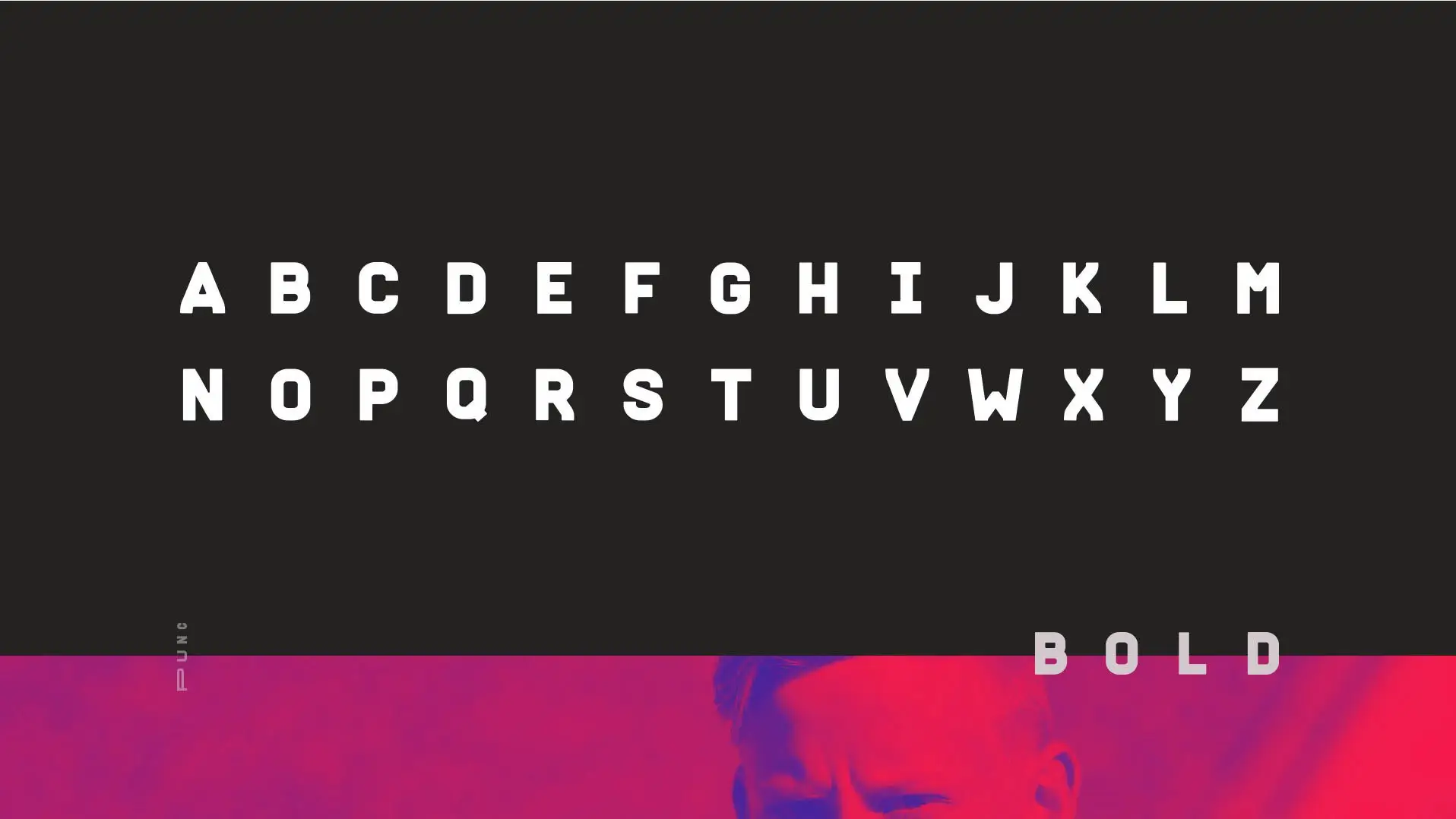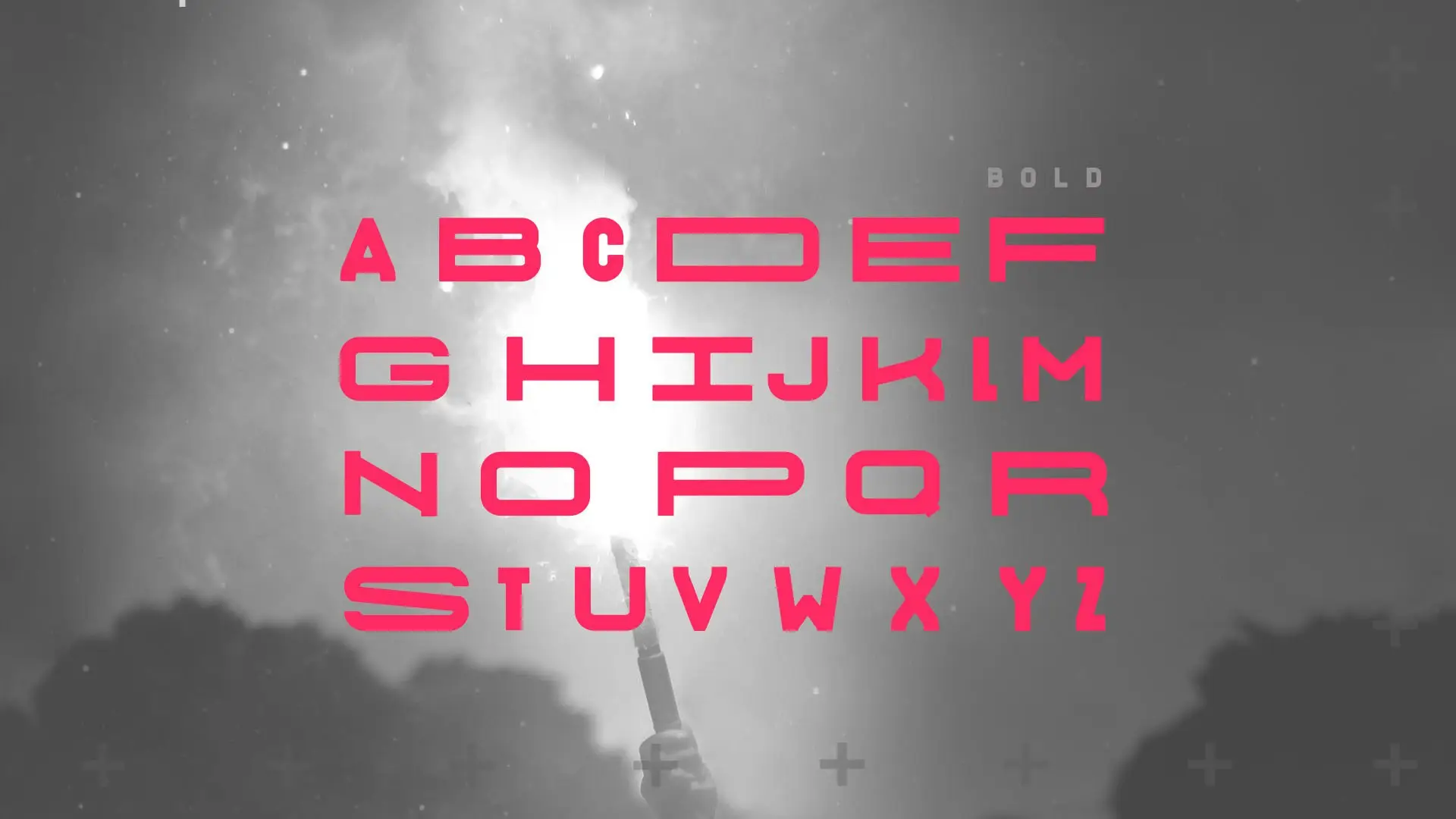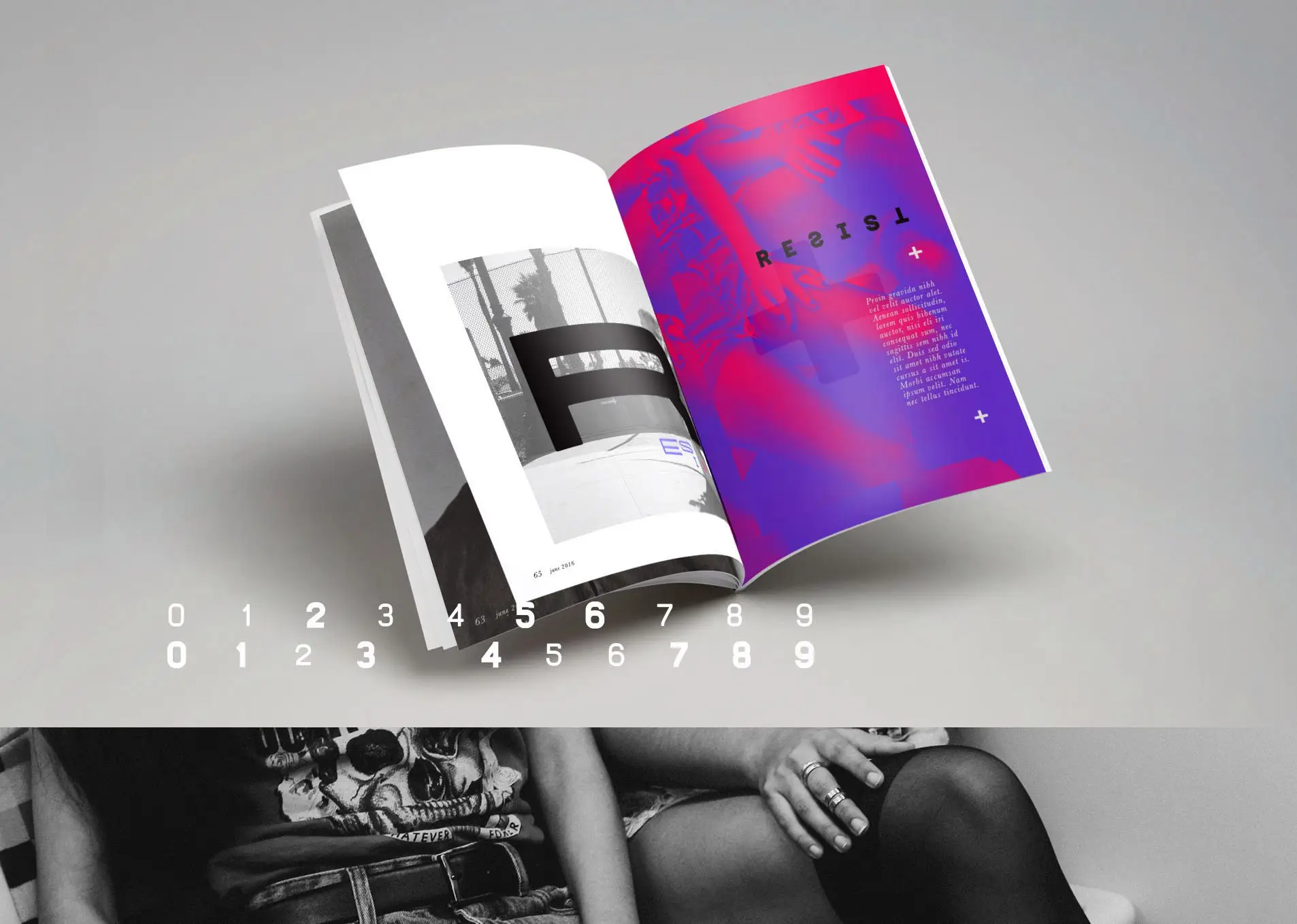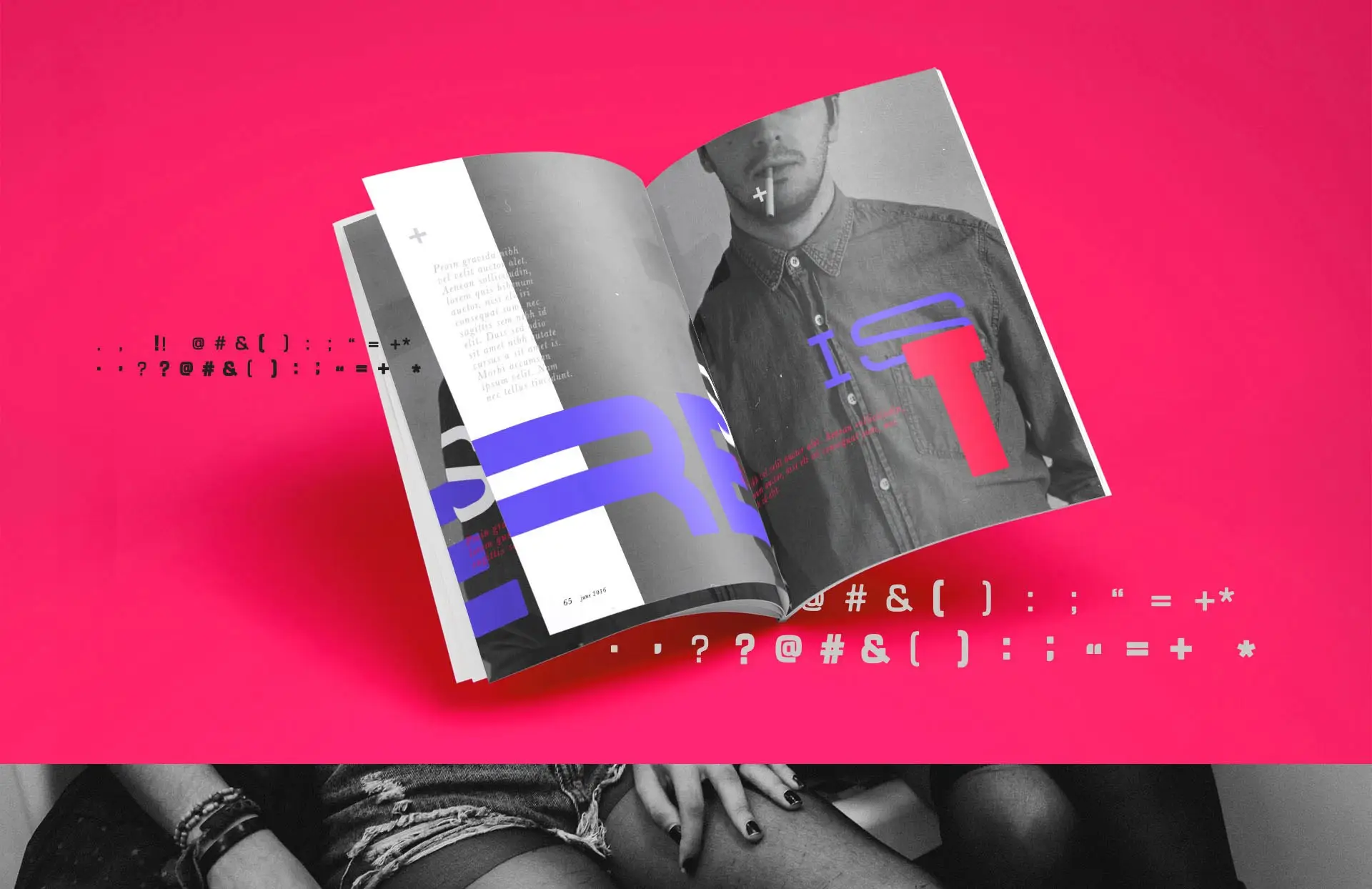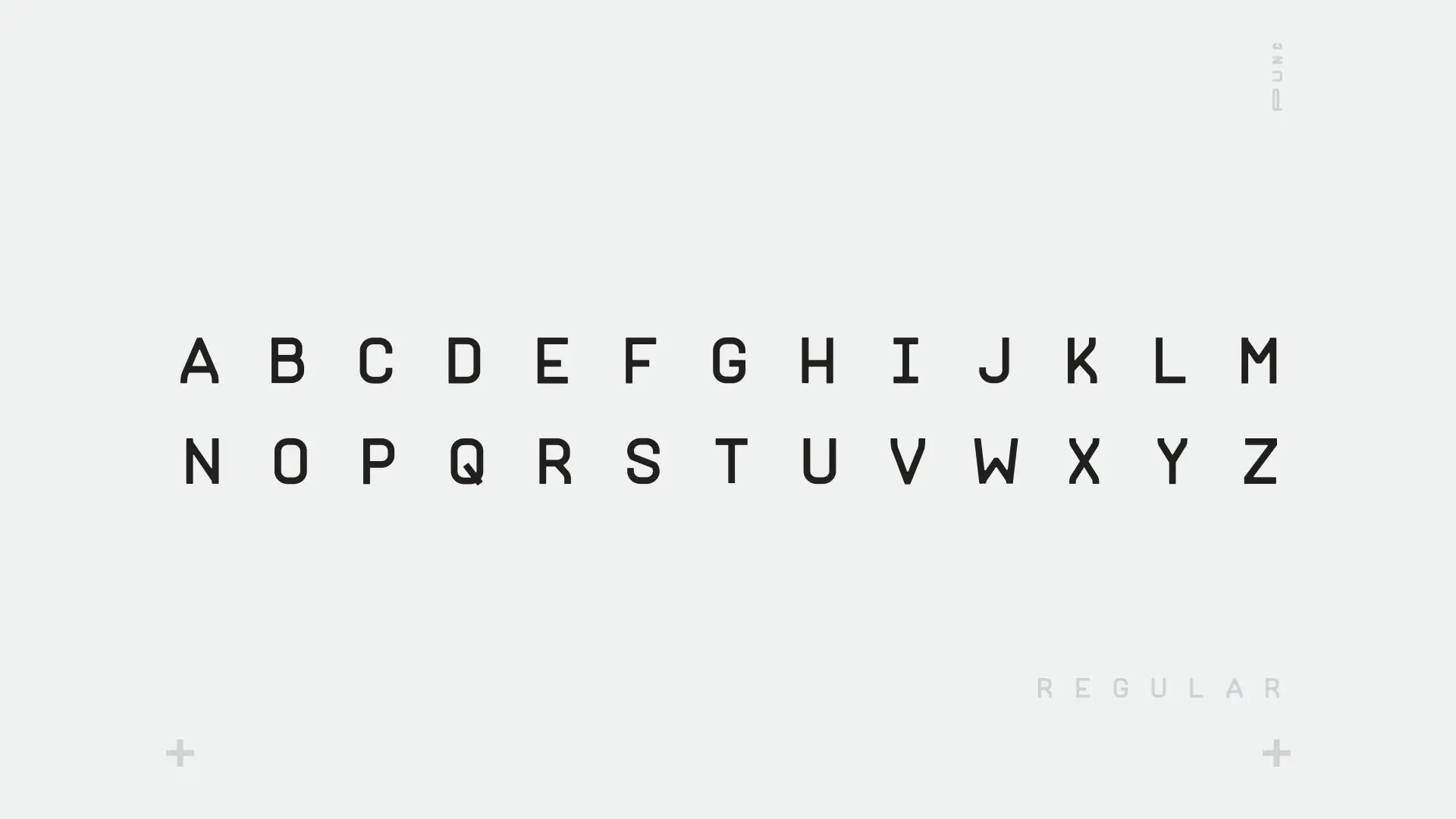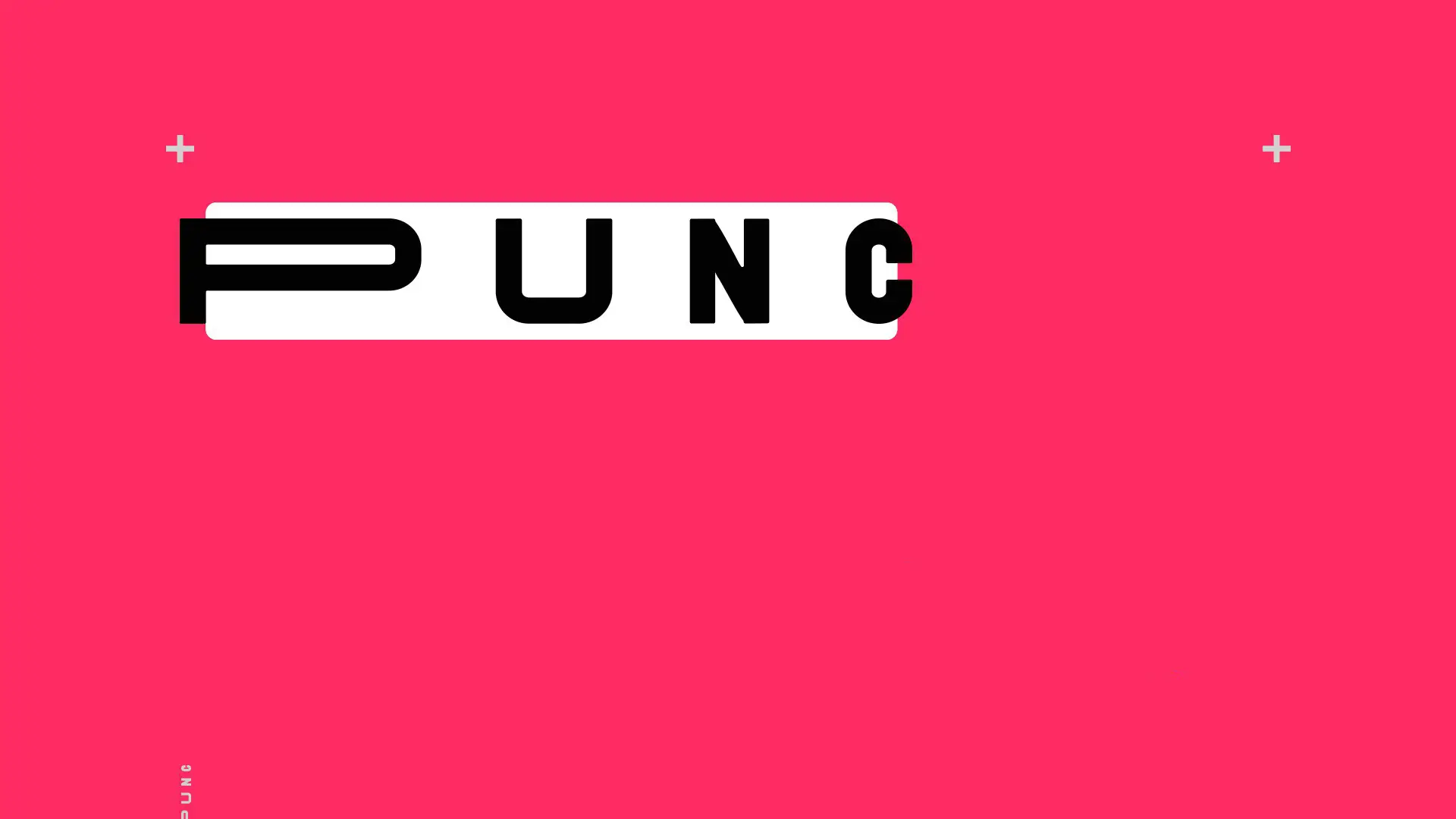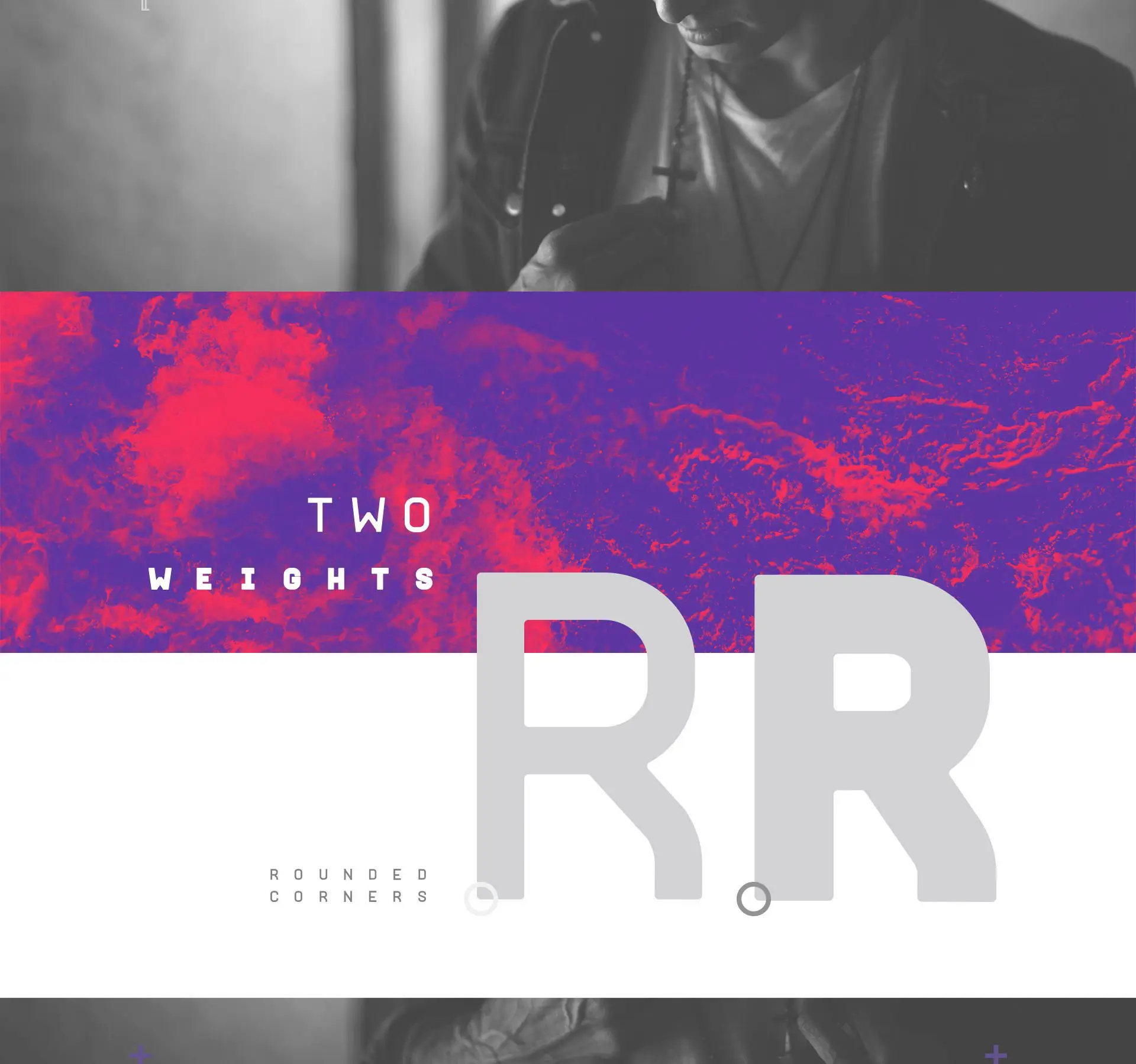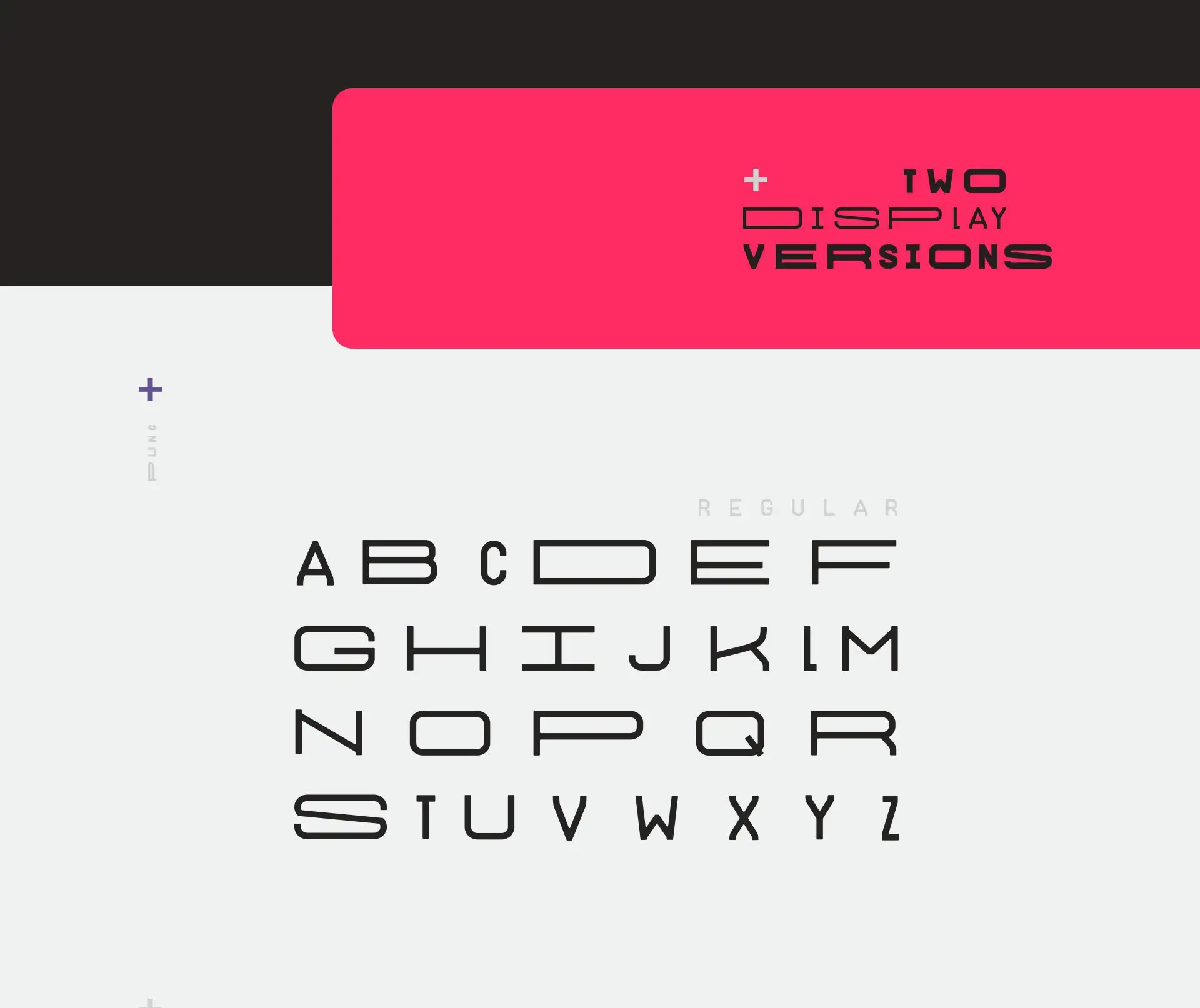
Punc Fonts is a unique and versatile typeface designed to elevate your creative projects. With a range of styles and weights, this font family is perfect for various applications, including branding, logos, web design, and print materials.
- Multiple styles and weights for diverse design needs
- Clean and modern aesthetic suitable for both digital and print
- Easy to read, making it ideal for user interfaces
- Styles: Regular, Bold, Italic
- Character set includes multilingual support
- Utilize Punc Fonts for eye-catching headlines and logos
- Pair with complementary fonts for a balanced design
- Experiment with different weights to create visual hierarchy